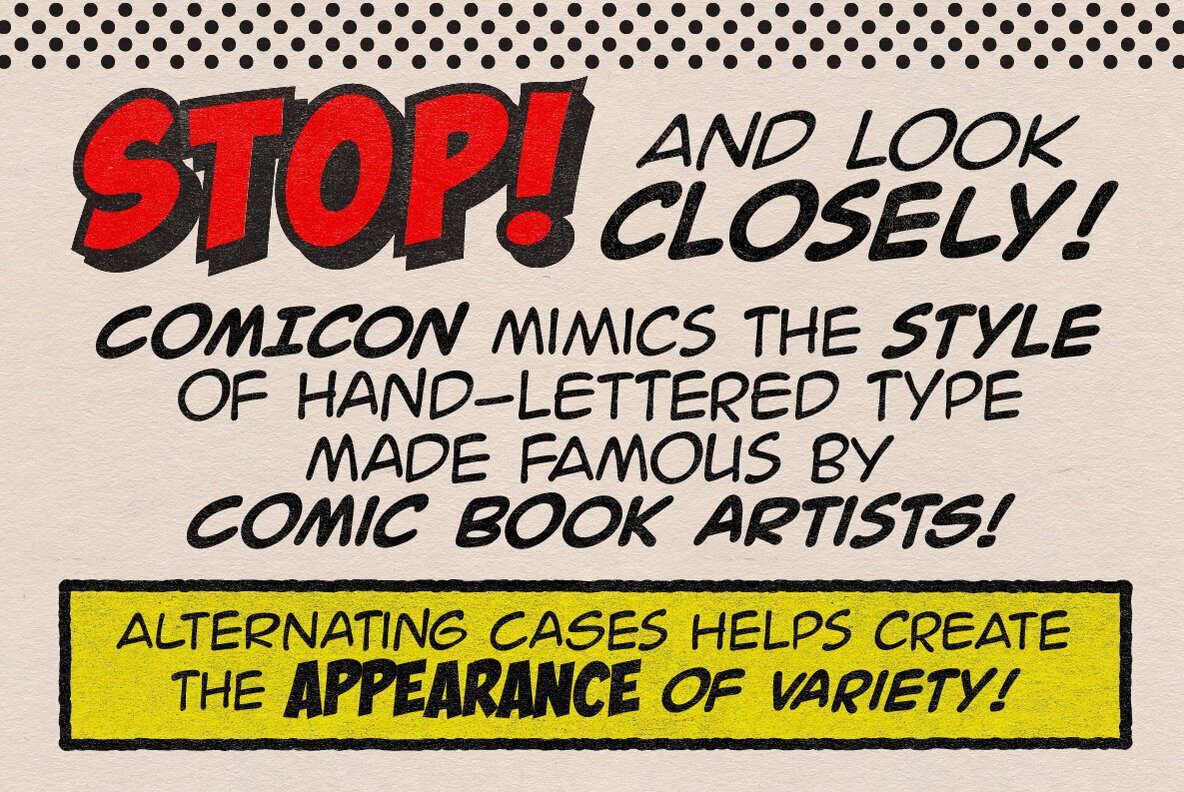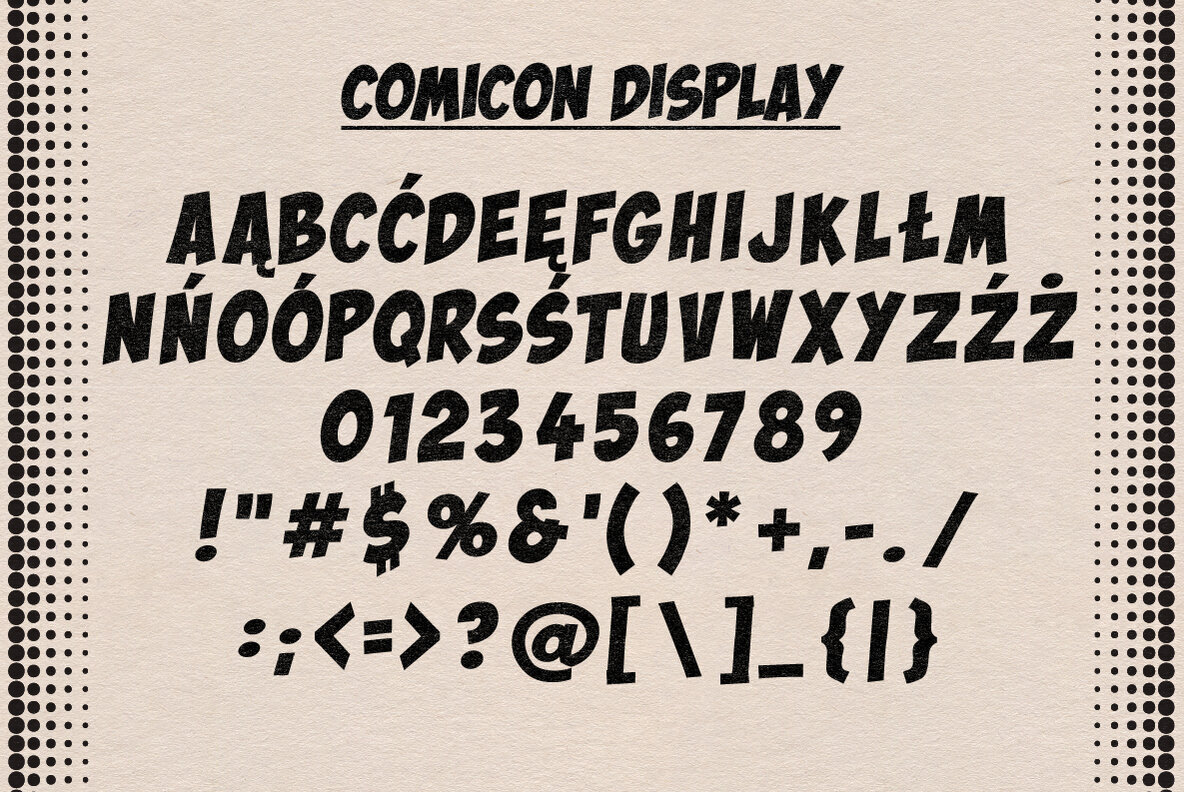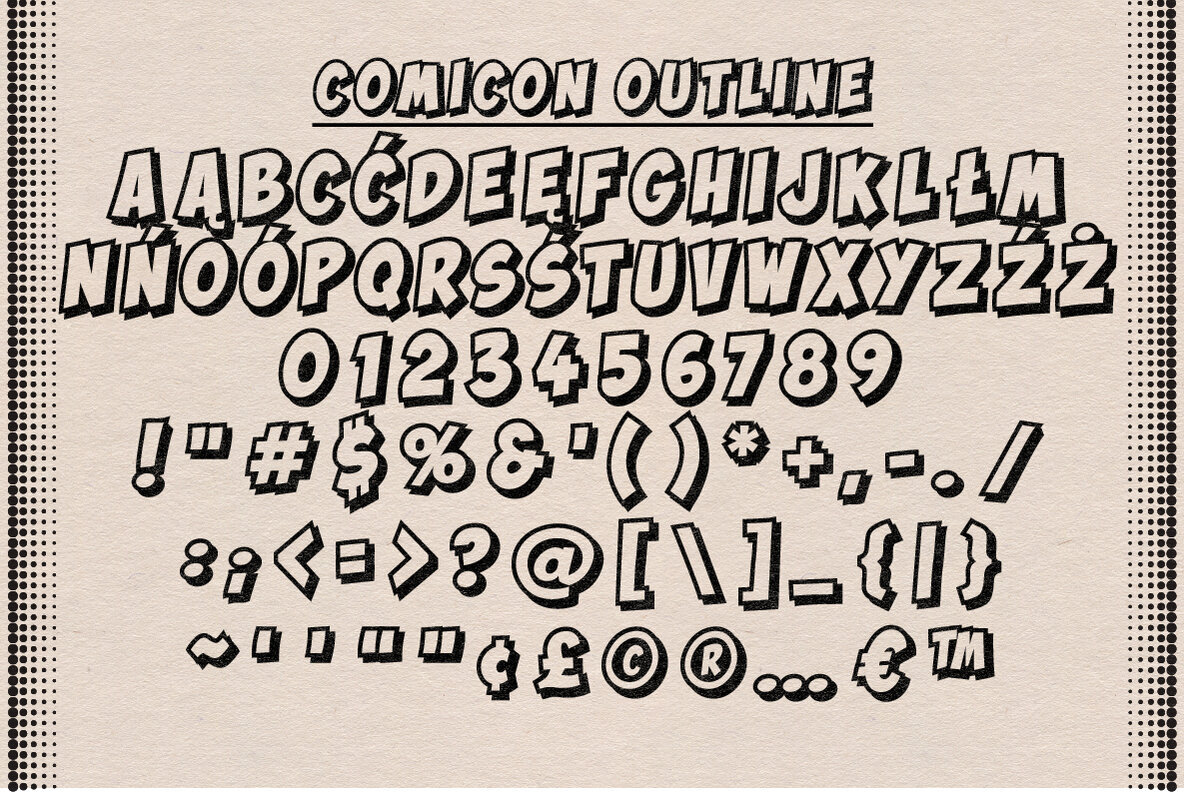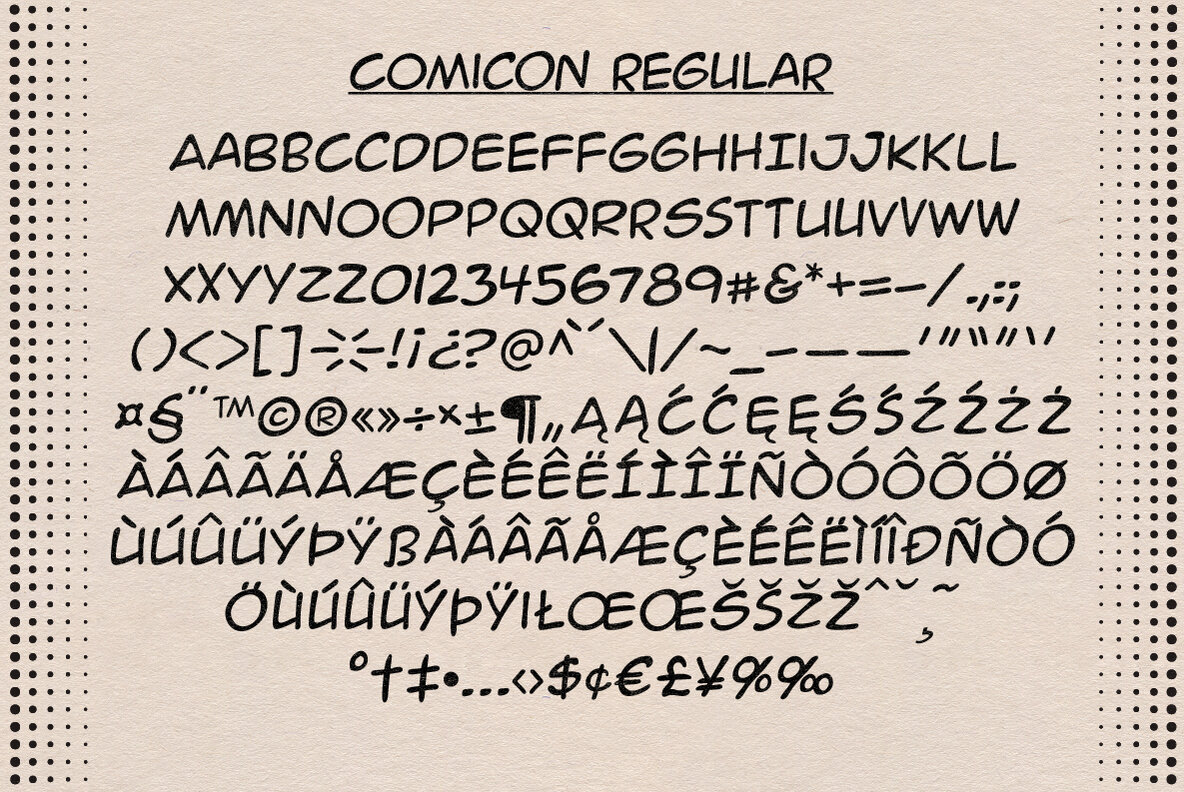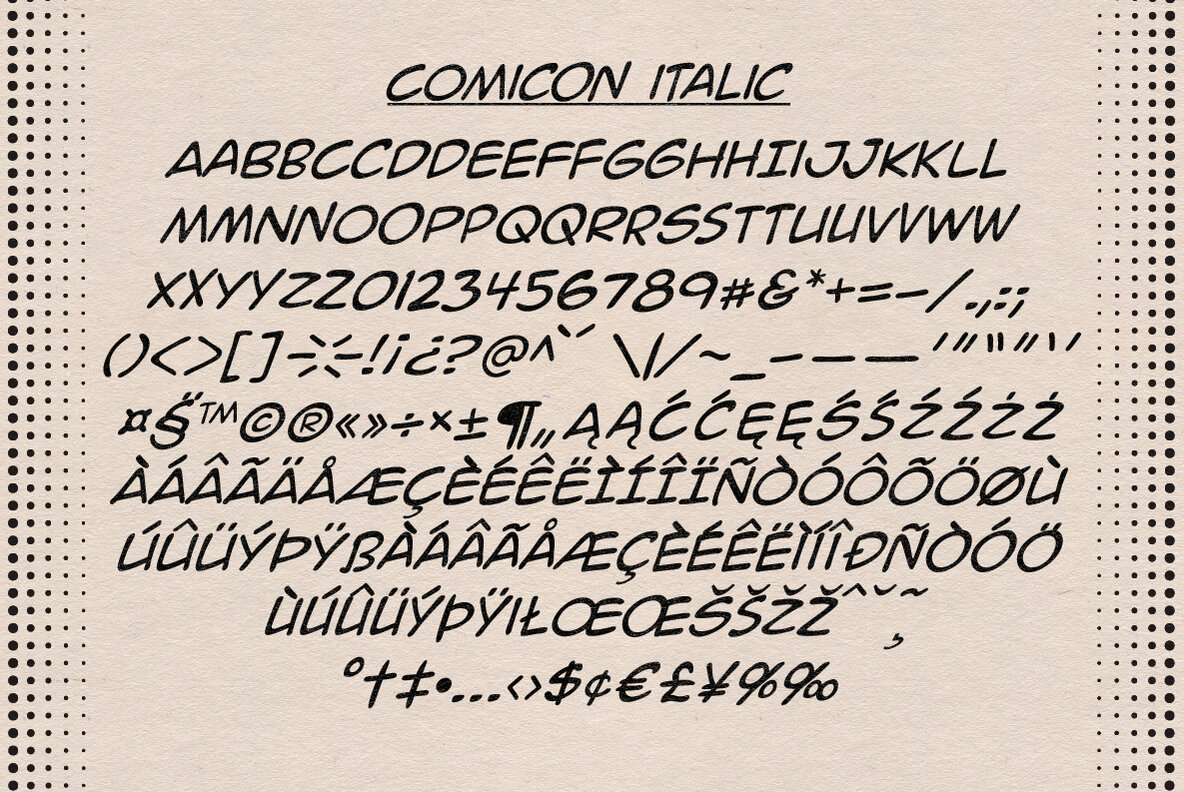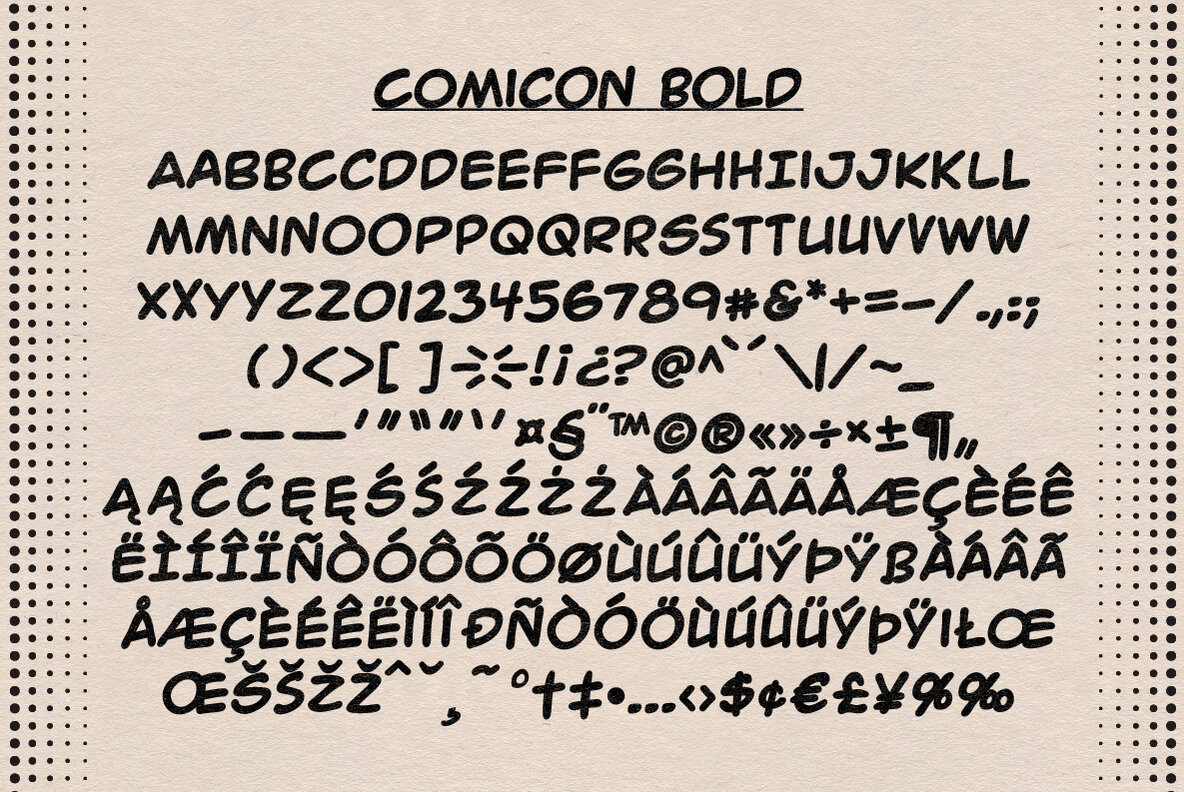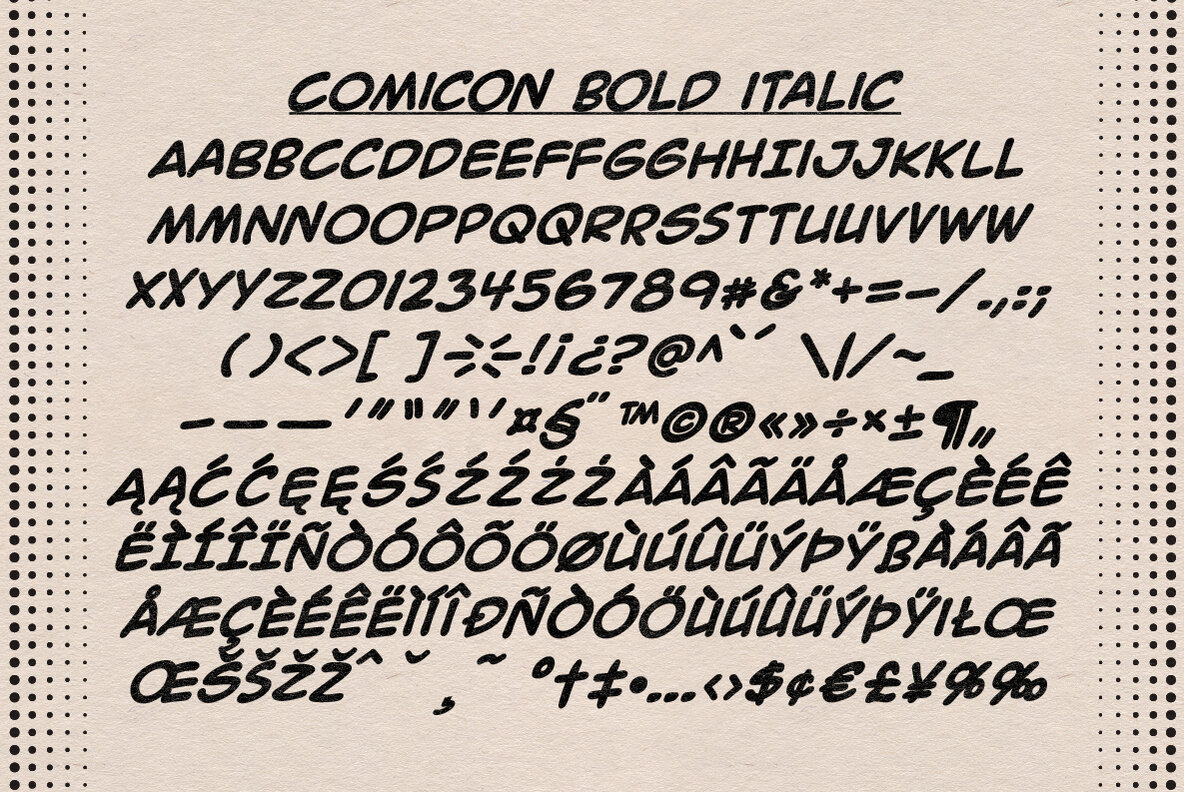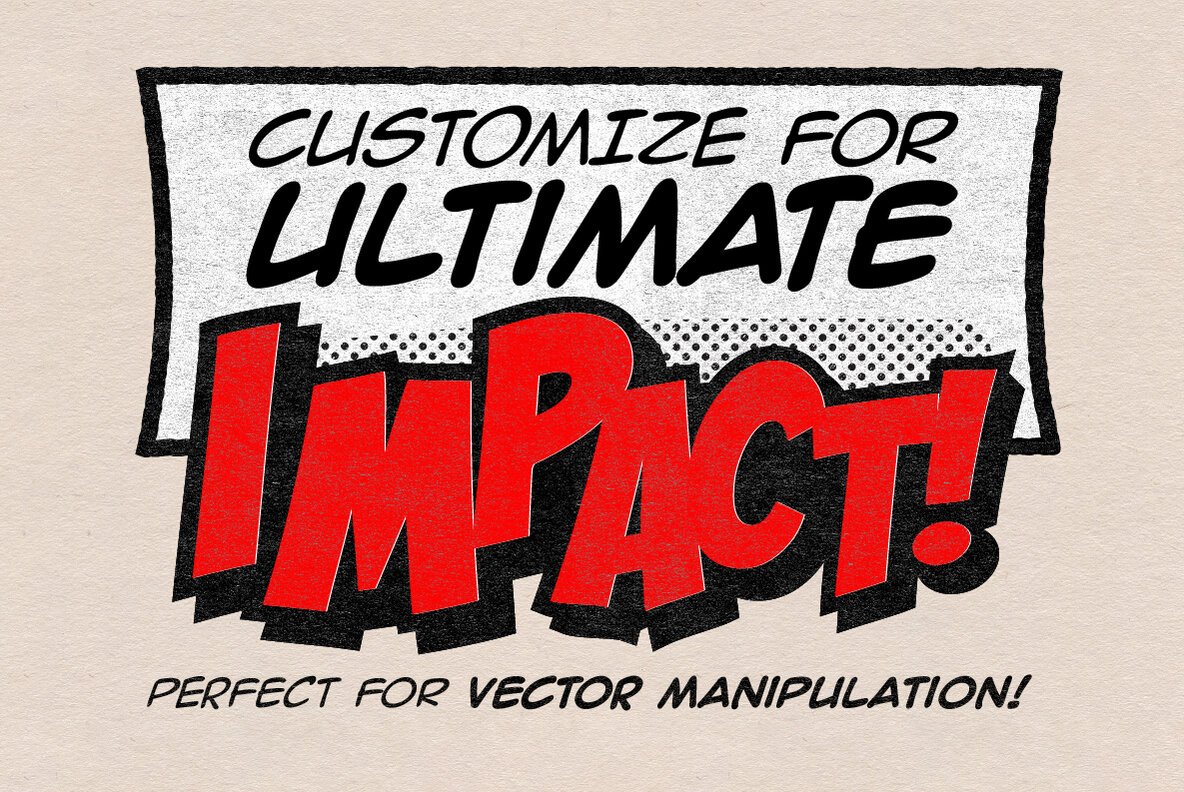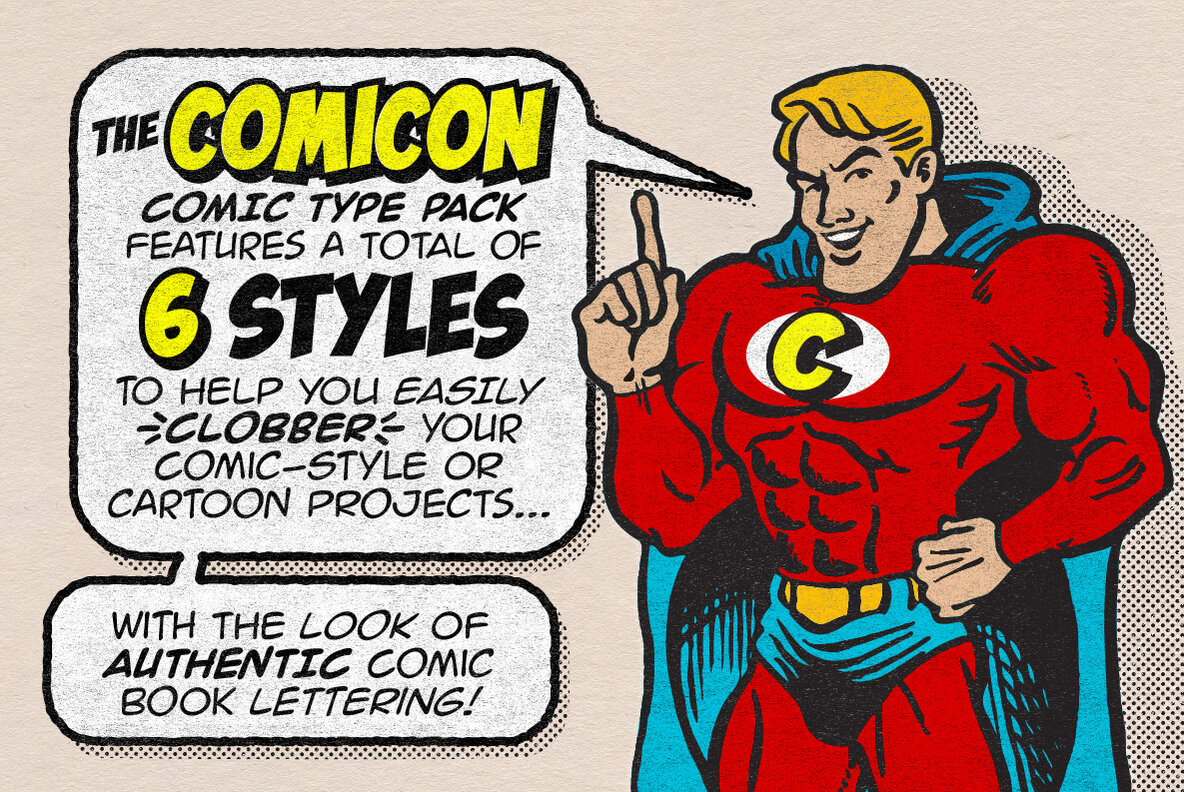
Comicon Font
StudioWorks proudly presents the • C O M I C O N • C O M I C • T Y P E • P A C K • — a dynamic collection of type inspired by the hand-lettered work of comic book artists. Comicon features a bold display face with an outlined dimensional complement – perfect for titles or words needing more dramatic emphasis. You also get a full character set of four narrative dialogue typefaces complete with multilingual support. Alternating between upper and lower case with Comicon Regular (Italic, Bold and Bold Italic) stretches the contextual variety so your letter pairs won’t look identical. The Comicon Comic Type Pack is the perfect all-in-one lettering solution for those comic-style or cartoon projects.
The Comicon Type Pack includes:
• Six comic type styles
• Upper (A-Z) and lower case (a-z) characters†
• Numbers (0-9)
• Standard punctuation and glyphs
• Multilingual Support (Regular, Italic, Bold and Bold Italic only)